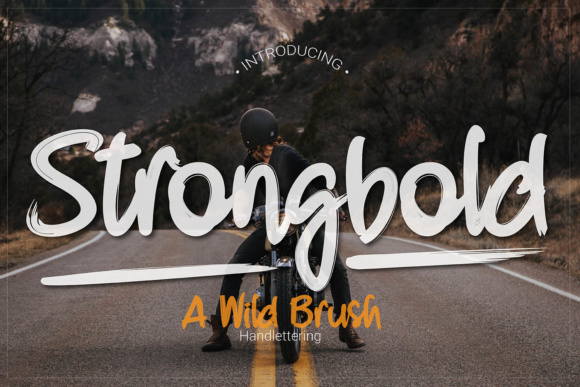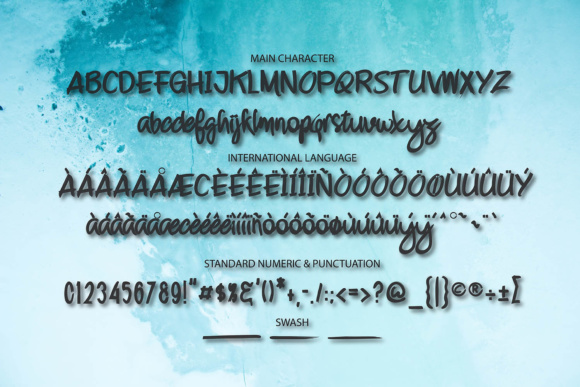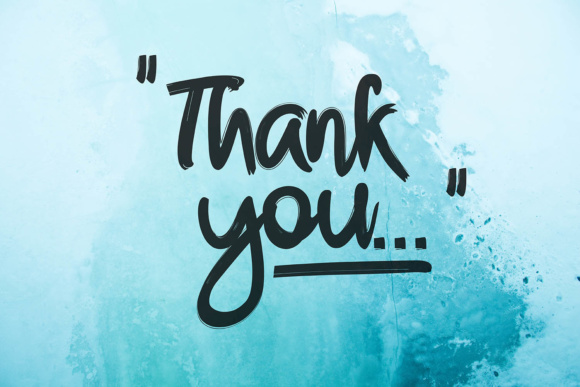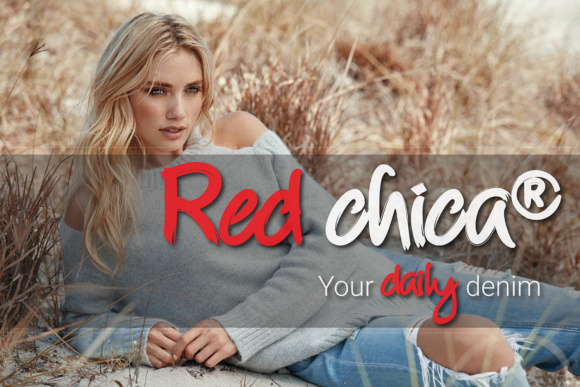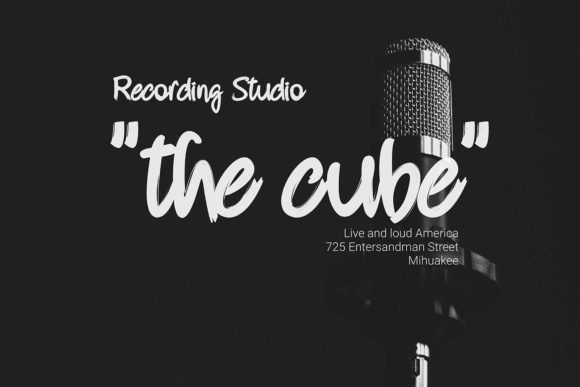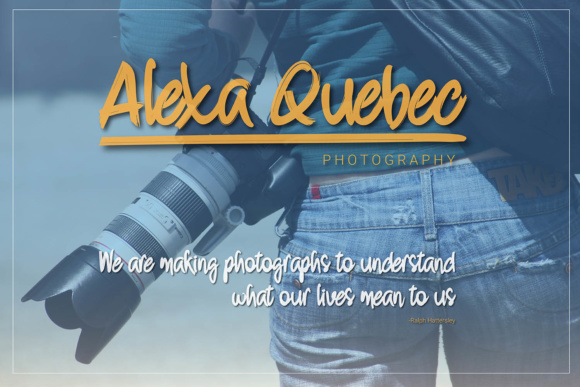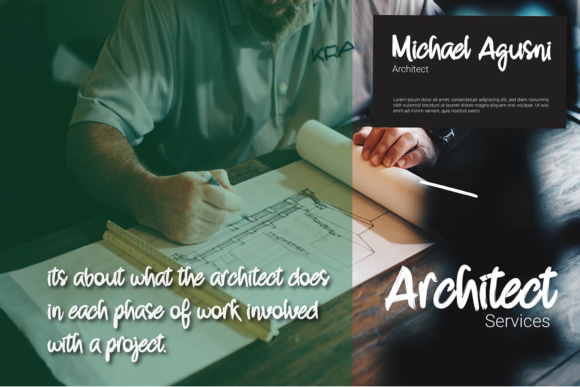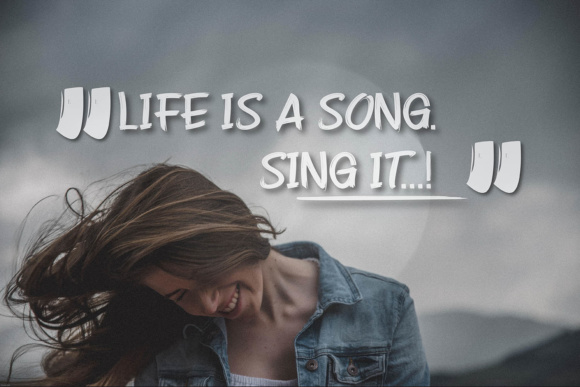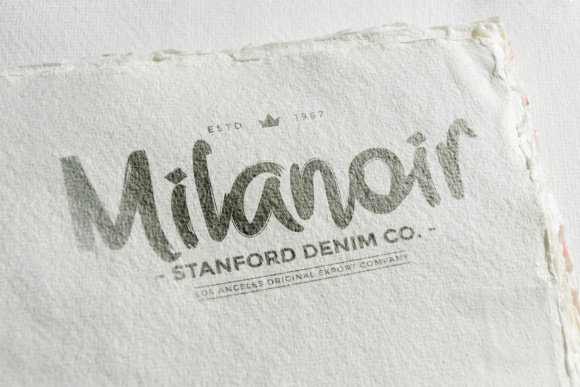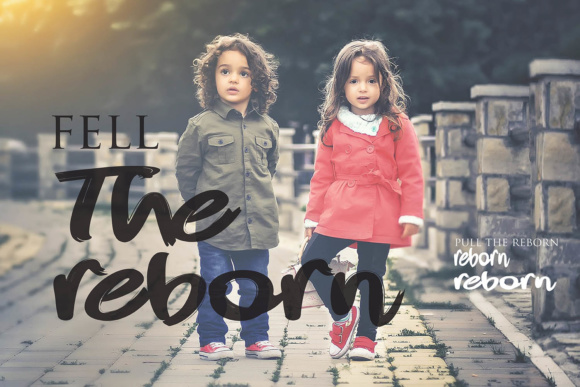
Strongbold Font
About Strongbold Font
Strongbold is a casual dry brush stroke font, ideal for expressing fun and a relaxed vibe in your designs. This is a great option for giving your designs a personal and natural touch.